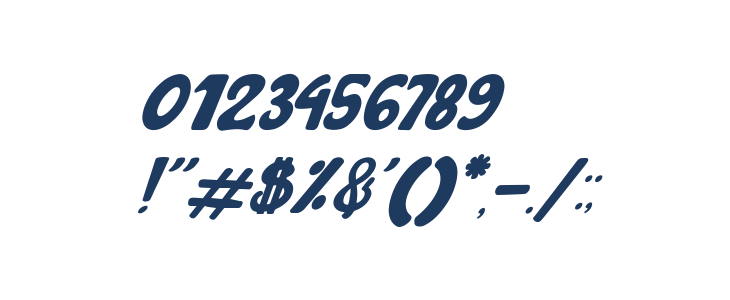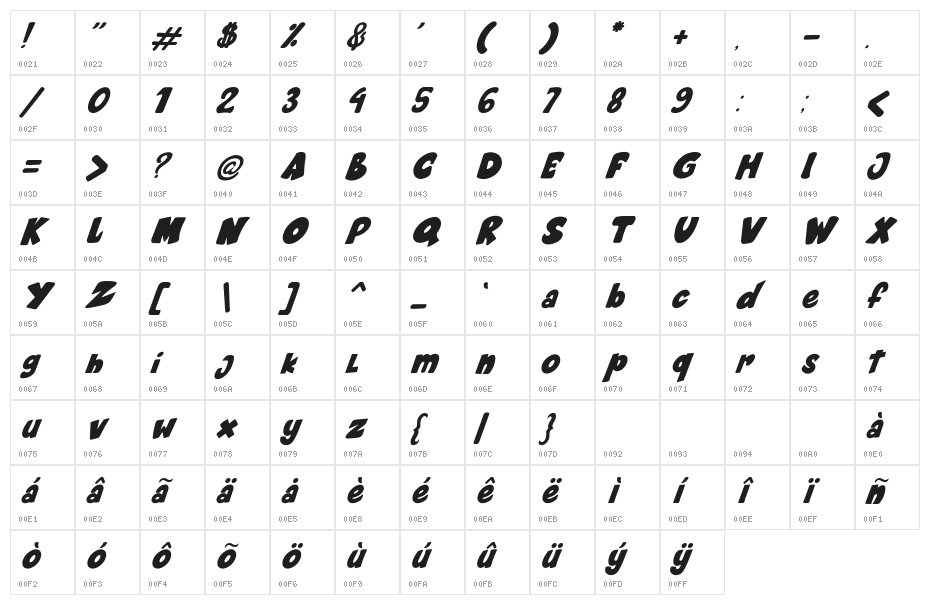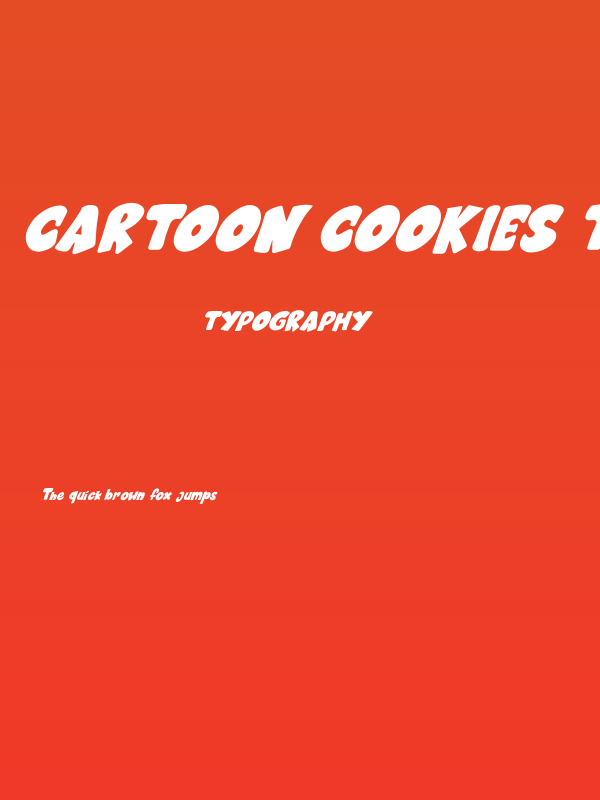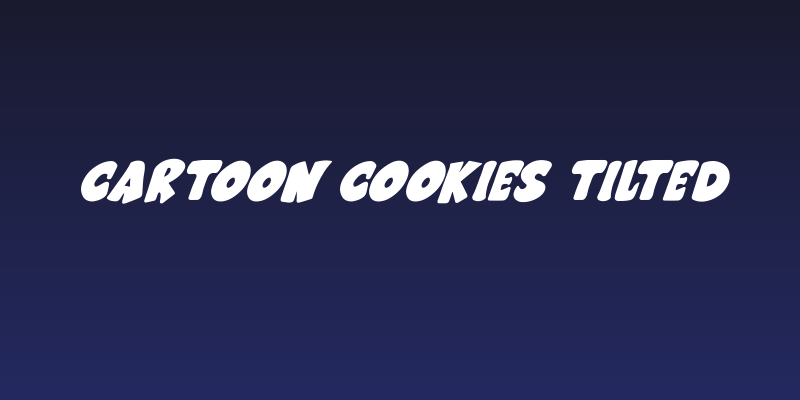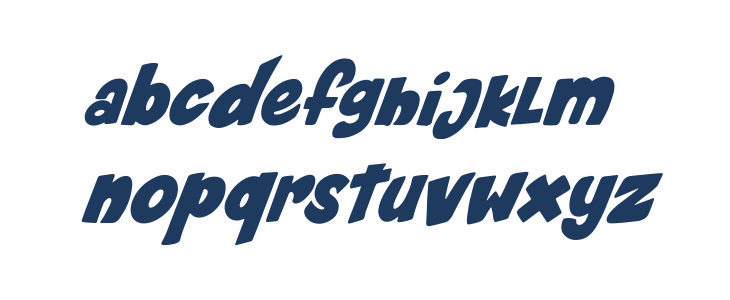
Cartoon cookies Tilted Font
Cartoon cookies Tilted Description
This playful and bold font features a cartoonish style with exaggerated curves and a slightly tilted appearance, giving it a dynamic and fun character. The letters are thick and rounded, creating a sense of whimsy and energy. The uppercase and lowercase letters maintain a consistent style, with the lowercase being slightly smaller but equally bold. Numbers and special characters follow the same playful design, making them easily recognizable and cohesive with the rest of the font. The overall look is informal and lively, perfect for projects that require a touch of humor and creativity.
| Overall Style | Playful, Cartoonish |
| Proposed Projects | Ideal for children's books, comic strips, playful branding, and party invitations. |